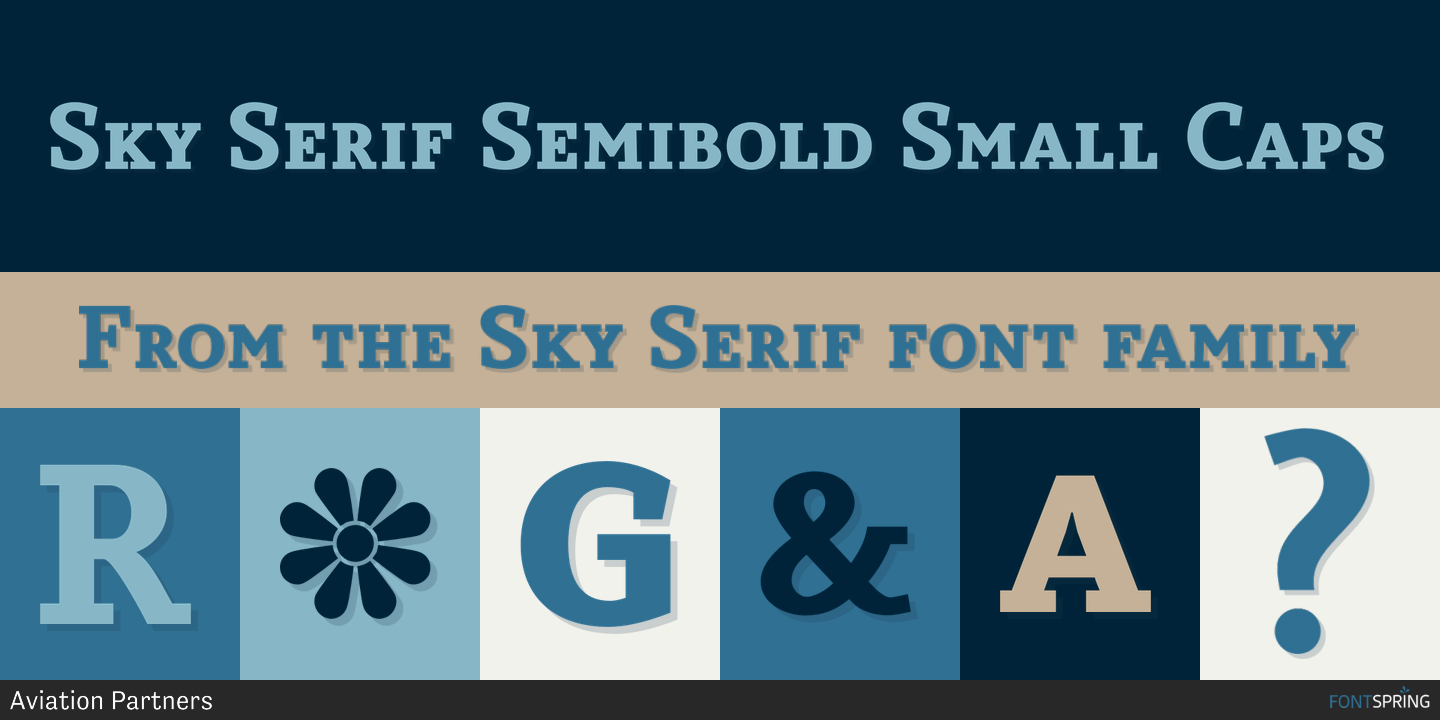
Sky Serif Semibold Small Caps
Sky Serif is a slab serif, western and display slab font family. This typeface has sixteen styles and was published by Aviation Partners.
Sky Serif is a clean-cut slab-serif design. The six weights provide extreme variations and great flexibility making it useful for reports and newsletters where a mix of weights can be used to good effect.